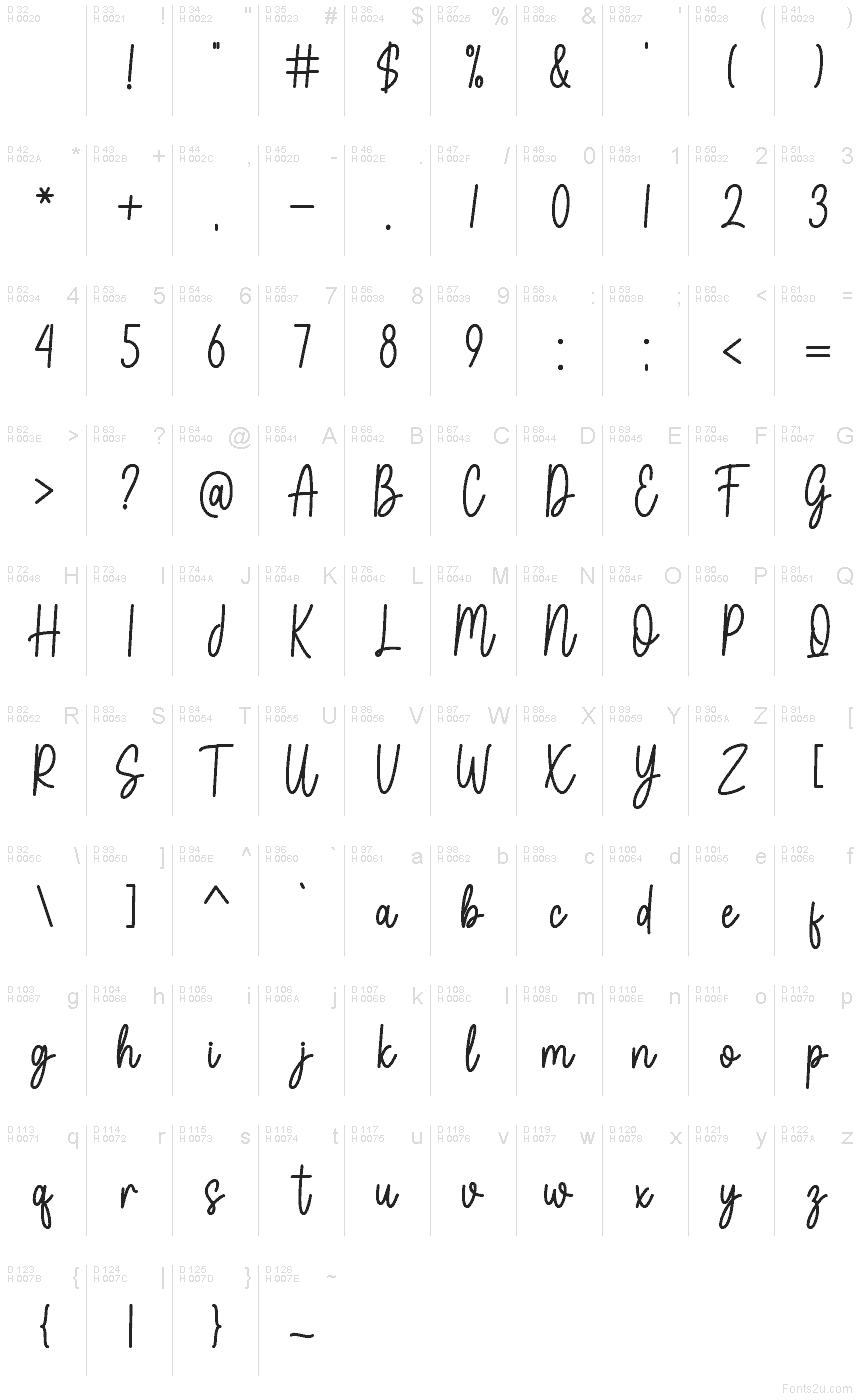
Sweet Aromatic
Sweet Aromatic font by DN Creative is a free handwritten font with a condensed width and casual design. Its beauty lies in its simplicity which still manages to exude exquisiteness. With friendly and approachable vibes, this typeface is ideal for designers looking for something unique and versatile as it can elevate any project.